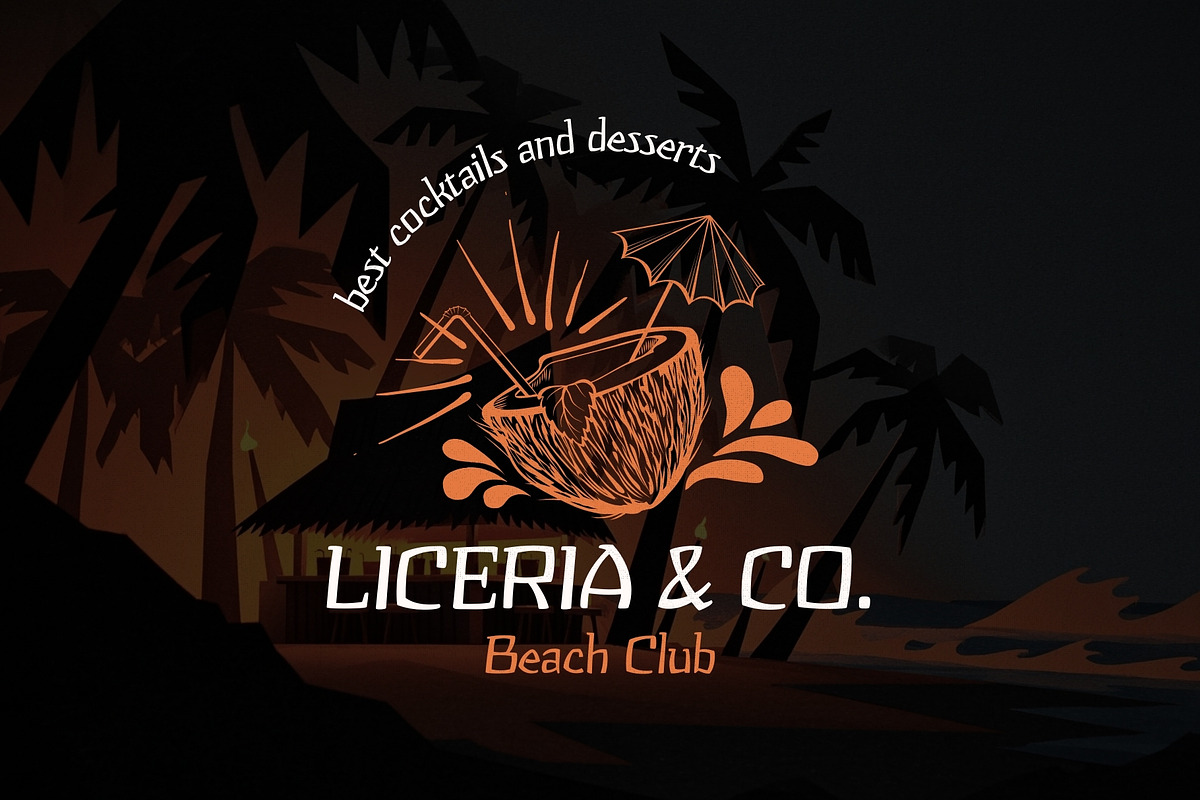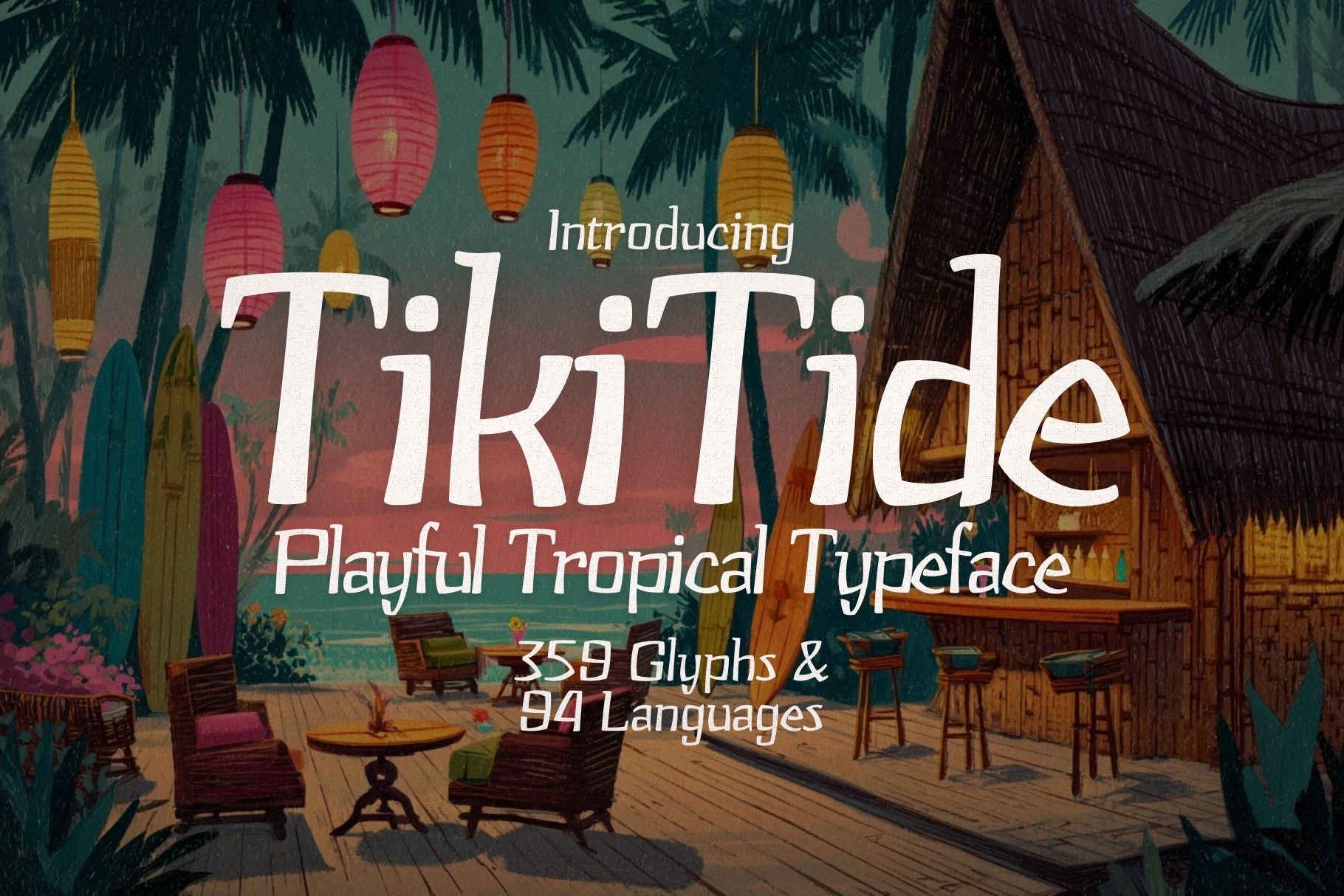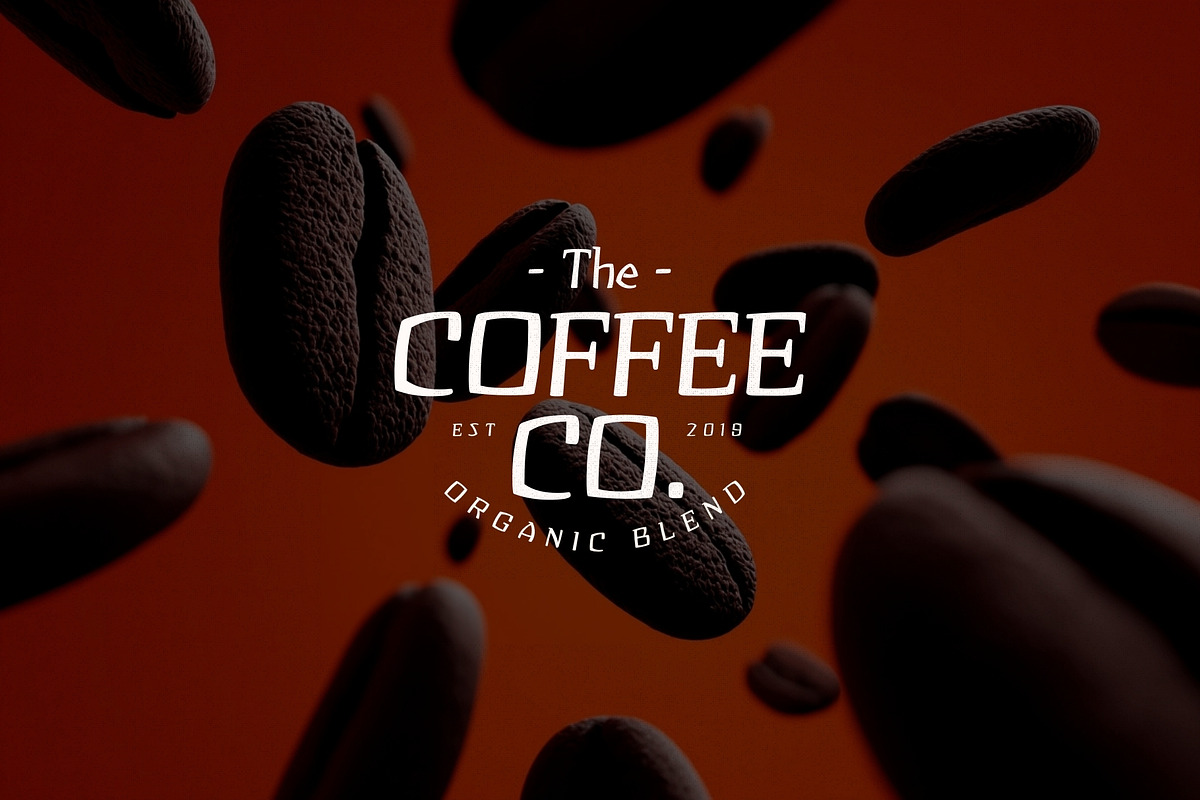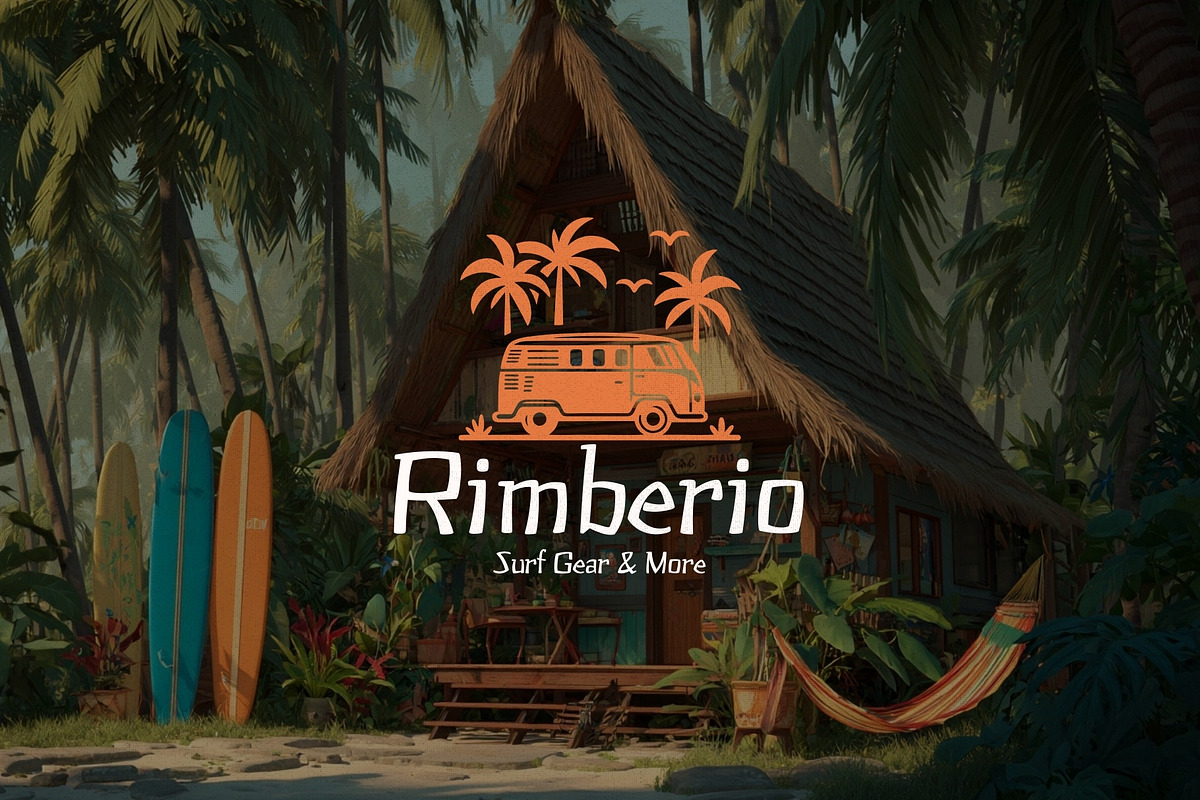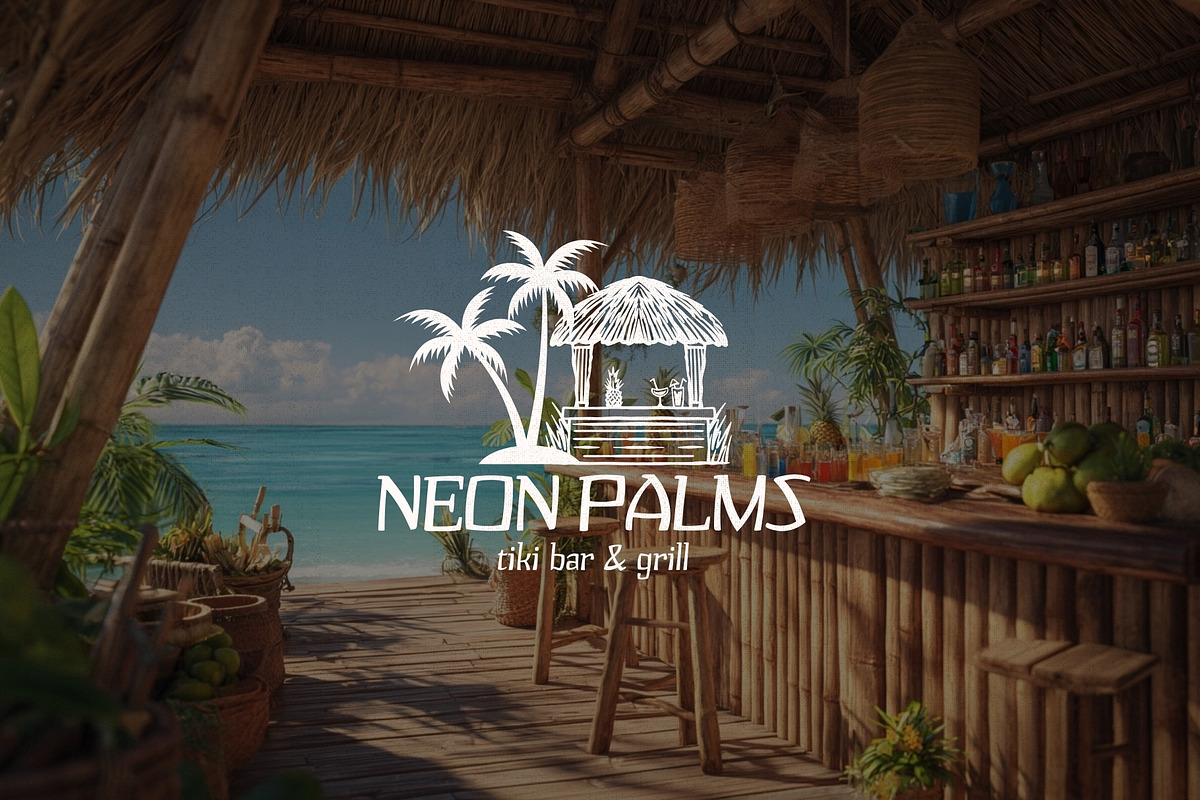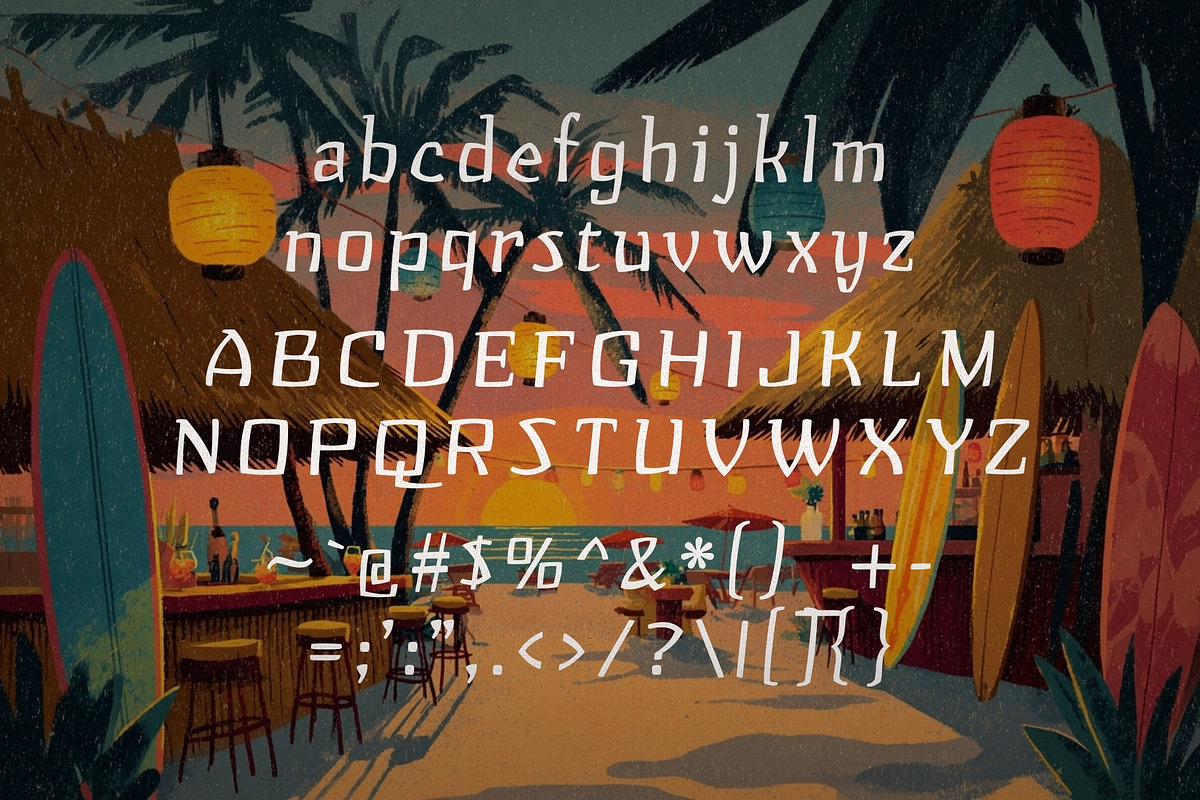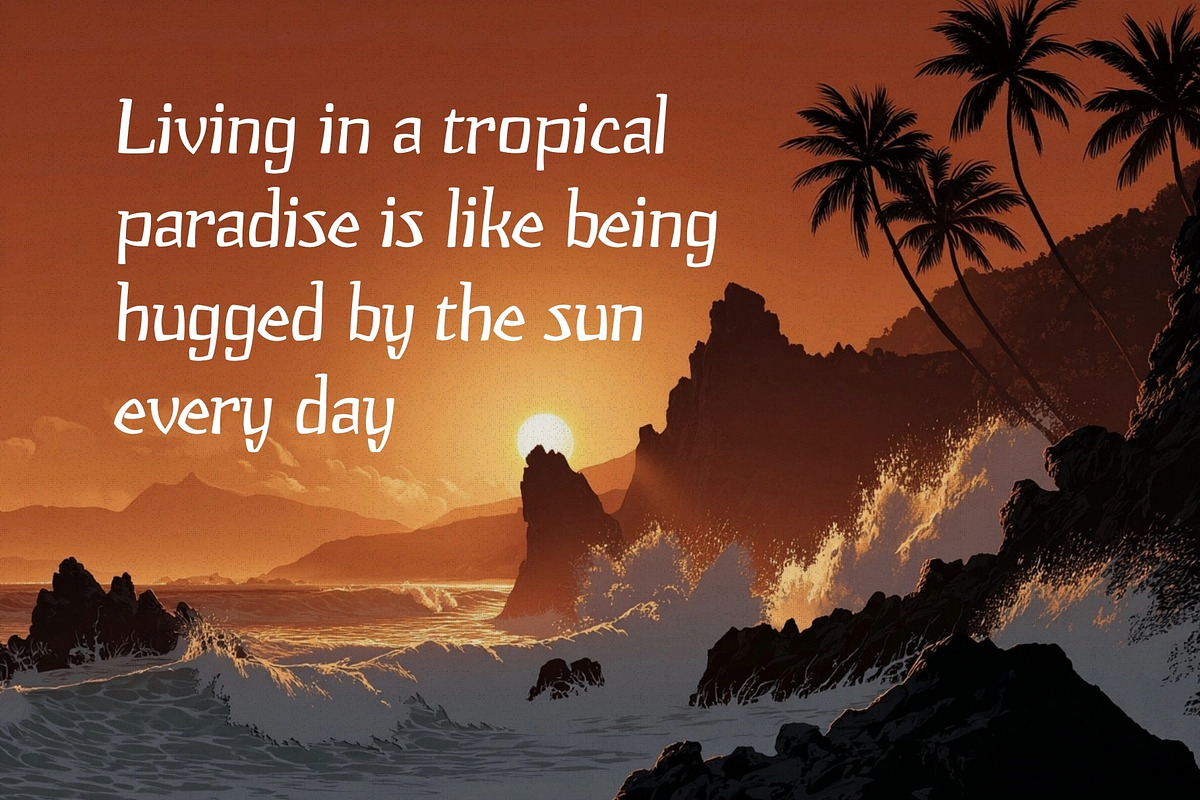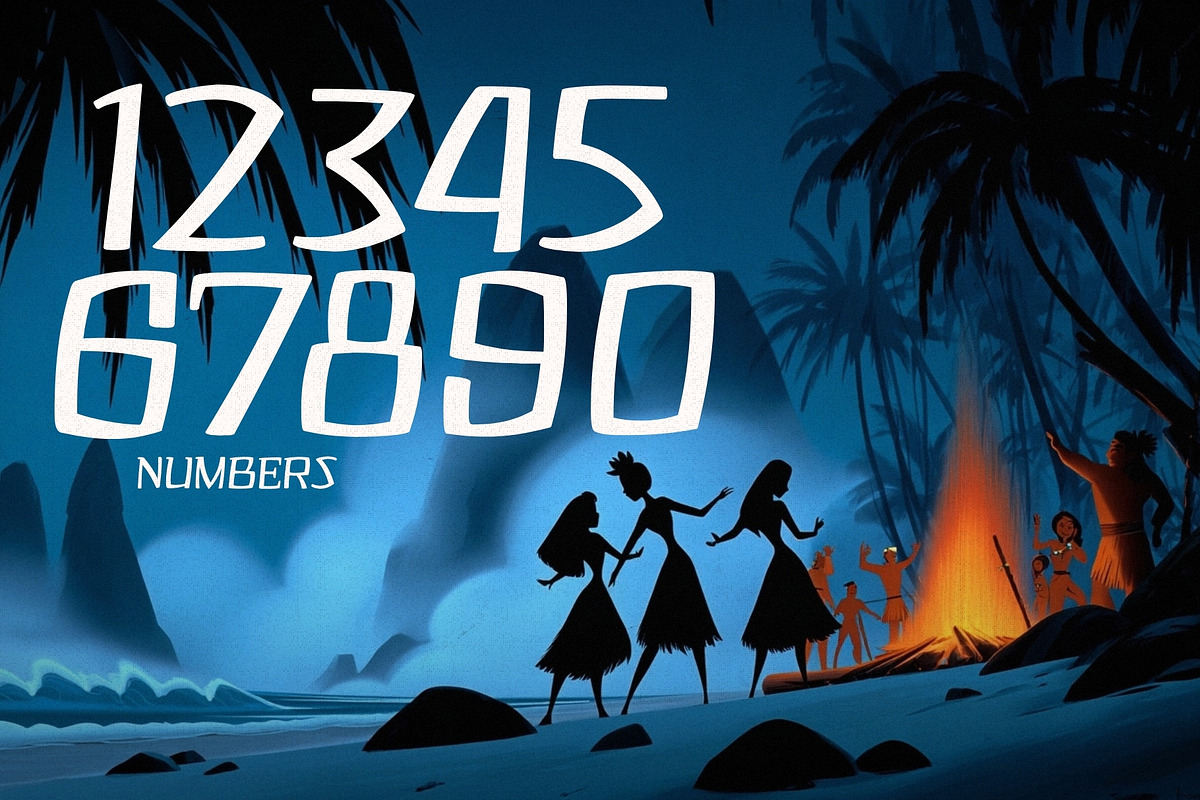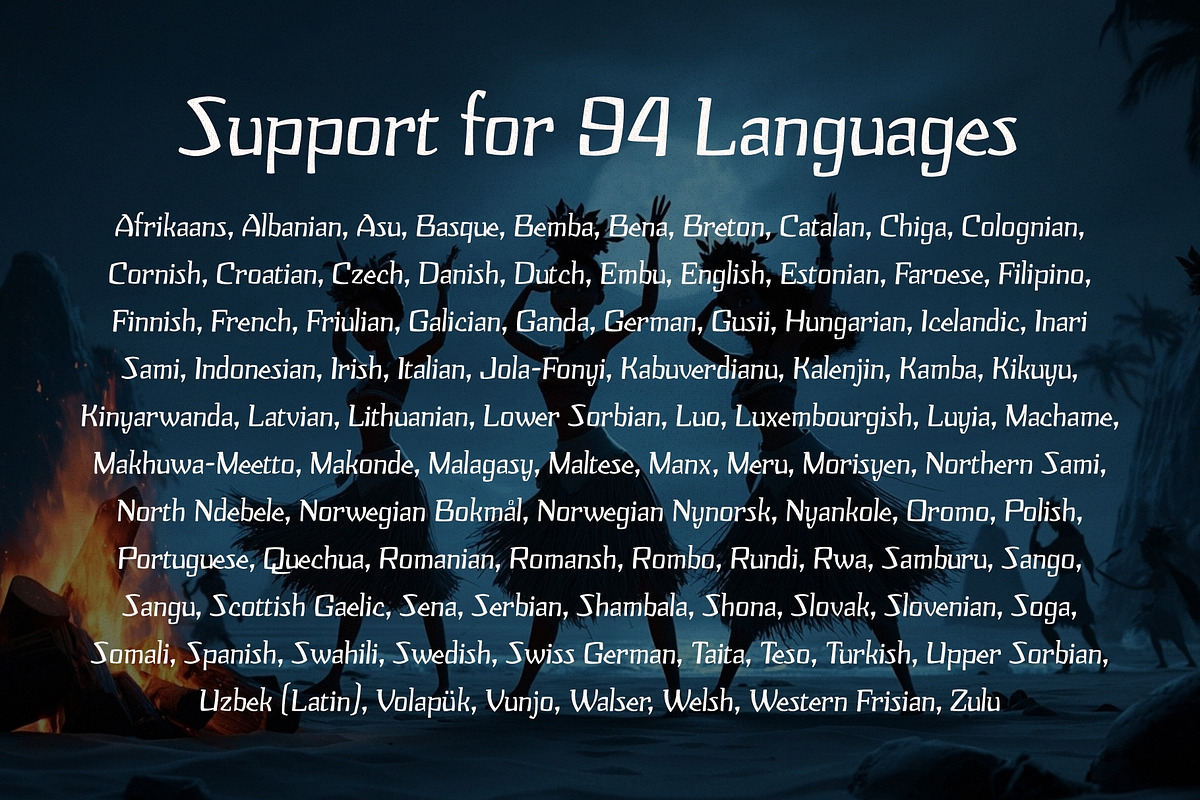
Tiki-Tide - Organic Tropical Font
Transport your designs straight to the islands with Tiki Tide, a vibrant and organic Hawaiian-inspired font that radiates laid-back tropical vibes. Handcrafted with a natural flow, this typeface captures the essence of paradise—sun-kissed beaches, swaying palm trees, refreshing cocktails, and the rhythm of island life.
Perfect for summer branding, beach party invites, travel posters, apparel design, logos, and anything that needs a splash of aloha spirit, Tiki Tide brings warmth and playfulness to every project. Its bold yet organic strokes feel alive and authentic, giving your work the breezy charm of a Polynesian escape.
Whether you’re designing for a tropical bar, surf shop, vacation rental, or simply want to infuse your project with island magic, Tiki Tide is your passport to paradise. 🌊🌞
Why You’ll Love Tiki Tide:
- Authentic Hawaiian-inspired design
- Perfect for logos, posters, and branding
- Adds a laidback, sunny, and tropical feel
- Ideal for summer, travel, and beach-themed projects
Bring the spirit of the tropics into your creative world with Tiki Tide—where every letter feels like a vacation.